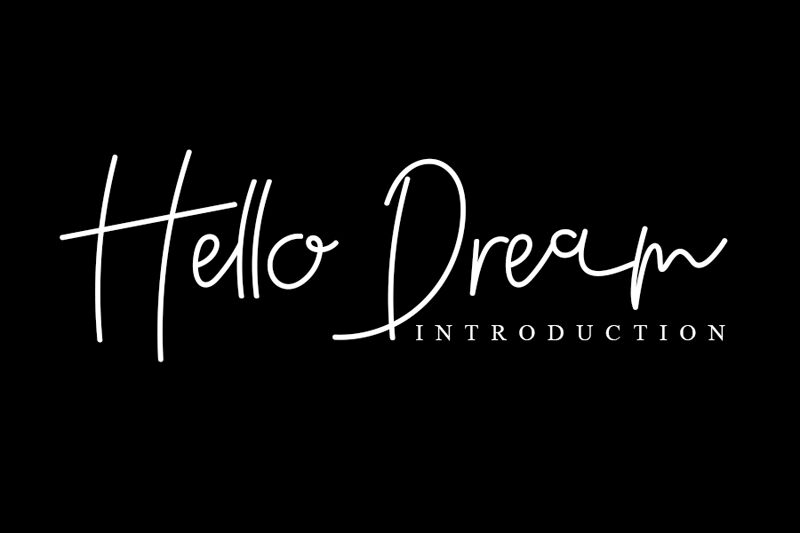
Hello Dream
Hello Dream font by Inermedia Studio is a free handwritten font that represents casual elegance. This light, free-form script features modern aesthetics and an approachable mood as it stands with equal charm for professional designers and hobbyists alike.